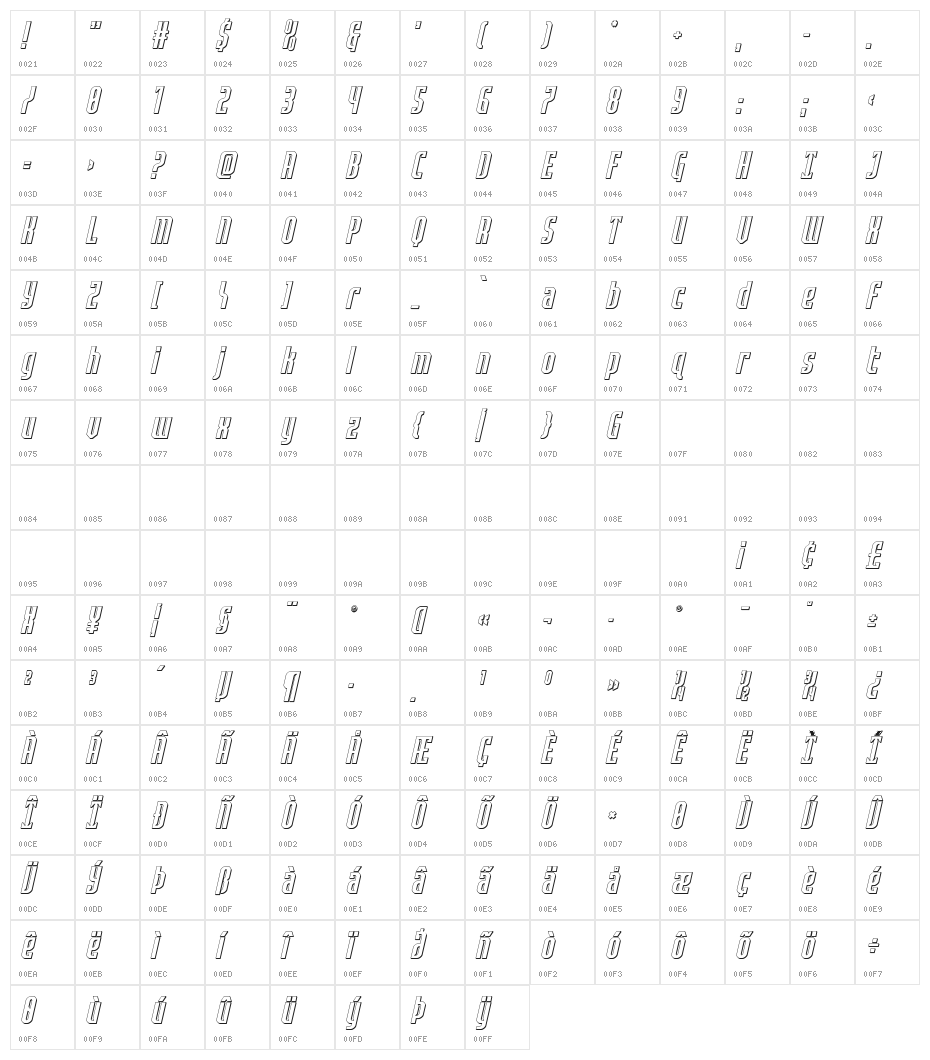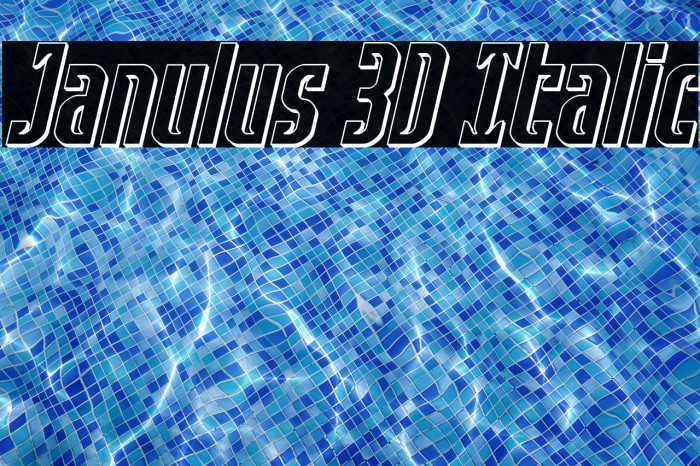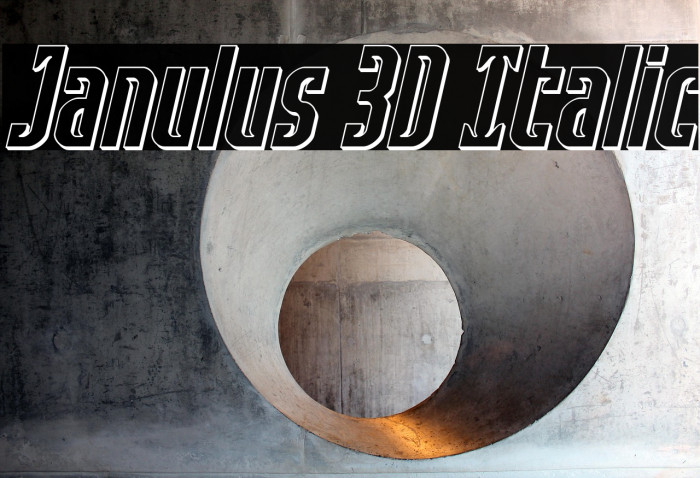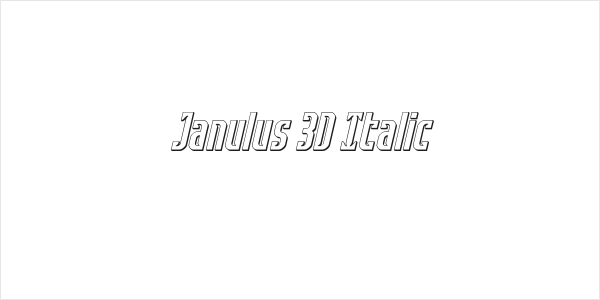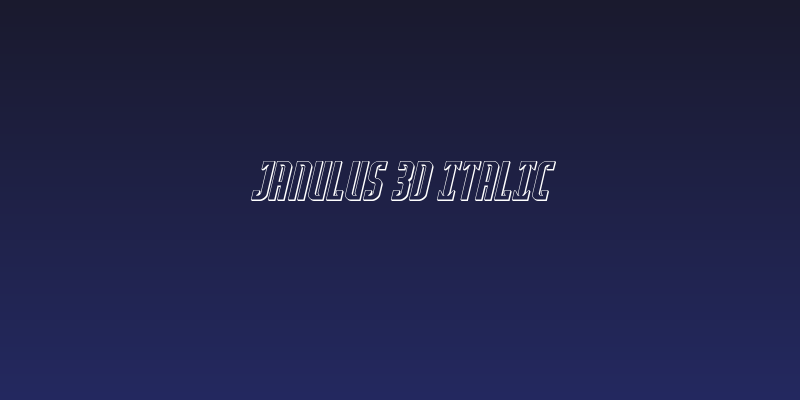
Janulus 3D Italic Font
Janulus 3D Italic Description
This font features a bold, three-dimensional effect with a distinct italic slant, giving it a dynamic and modern appearance. The characters are outlined, creating a sense of depth and movement. The uppercase and lowercase letters maintain a consistent style, with sharp angles and clean lines that enhance readability while adding a unique flair. The numerals and special characters follow the same design principles, ensuring uniformity across all elements. This font's bold and eye-catching style makes it suitable for projects that require a strong visual impact.
| Proposed Projects | Ideal for posters, logos, headlines, and any design needing a striking, modern touch. |